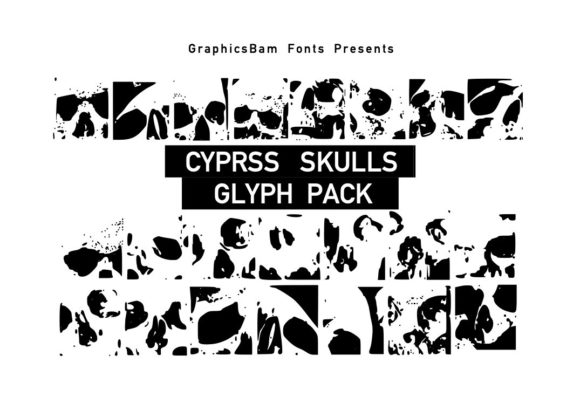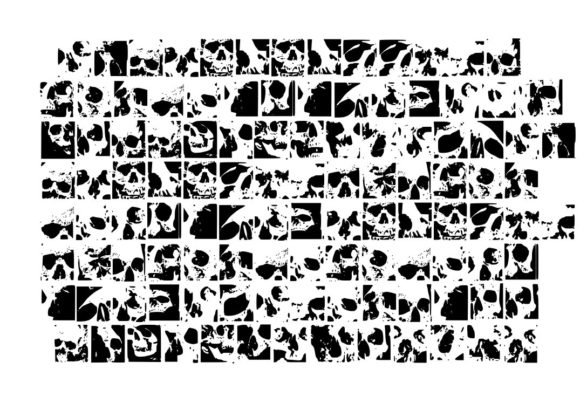
ABOUT CYPRESS SKULLS FONT
“Cypress Skulls” is an extensive collection of glyphs that showcases a variety of human skull designs. With its unique and intricate skull textures, this pack is an excellent choice for any project that requires a touch of Halloween-inspired aesthetics or a darker and edgier theme.
Whether you’re working on Halloween-themed graphic designs, crafting spooky decorations, or any creative endeavor that calls for the incorporation of skull motifs, “Cypress Skulls” provides a wide selection of options to choose from. From realistic and detailed skull representations to stylized and artistic interpretations, this pack allows you to explore different skull designs and create captivating compositions.
The skull glyphs in “Cypress Skulls” can add a sense of mystery, macabre beauty, and intrigue to your work. Whether you’re designing party invitations, haunted house props, tattoo artwork, or any other project that demands a haunting aesthetic, “Cypress Skulls” is a valuable resource.
Unleash your creativity and let the unique textures of these skull glyphs enhance your designs. Incorporate these glyphs into your projects and embrace the darker side of your imagination.